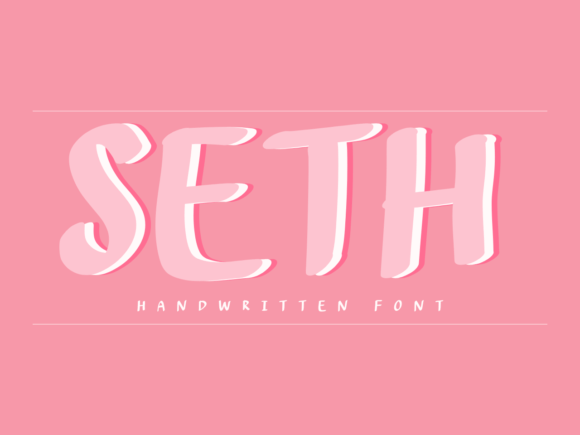
Peer into the enchanting realm of Seth Font, the quintessence of handwritten beauty. Allow its sinuous strokes and unassuming charm to captivate your designs and ignite your creativity. This script font, lovingly crafted by Pukka De, is a masterpiece that blends grace and playfulness effortlessly. Its whimsical touches add a delightful dose of character, while its inherent versatility ensures seamless harmonization with diverse design aesthetics. Whether you seek to craft captivating logos, add a personal touch to branding endeavors, or evoke emotions in your digital content, Seth Font stands ready to elevate your creations. Let your imagination run wild as you explore the limitless possibilities that await with this charming font at your fingertips.
With Seth Font as your creative ally, you gain the power to transform ordinary designs into extraordinary expressions of art. Its organic flow and delicate details bring a sense of authenticity to your work, creating a connection with your audience that lingers. Seth Font isn't merely a tool; it's an extension of your artistic vision, a conduit through which your creativity can soar unhindered. Embrace the endless opportunities that await, and let Seth Font guide you on a captivating journey of design excellence.
Seth Font possesses an intrinsic charm that defies categorization. Its ability to meld seamlessly with diverse design styles makes it the ideal choice for an array of projects. From elegant wedding invitations to heartfelt personal letters, from eye-catching social media posts to sophisticated website designs, Seth Font beautifully complements each medium it graces. Its versatility knows no bounds, allowing you to effortlessly switch between projects without compromising on quality or aesthetic integrity. Embrace the boundless creative potential that Seth Font unlocks, and let your designs shine with an allure that captivates.